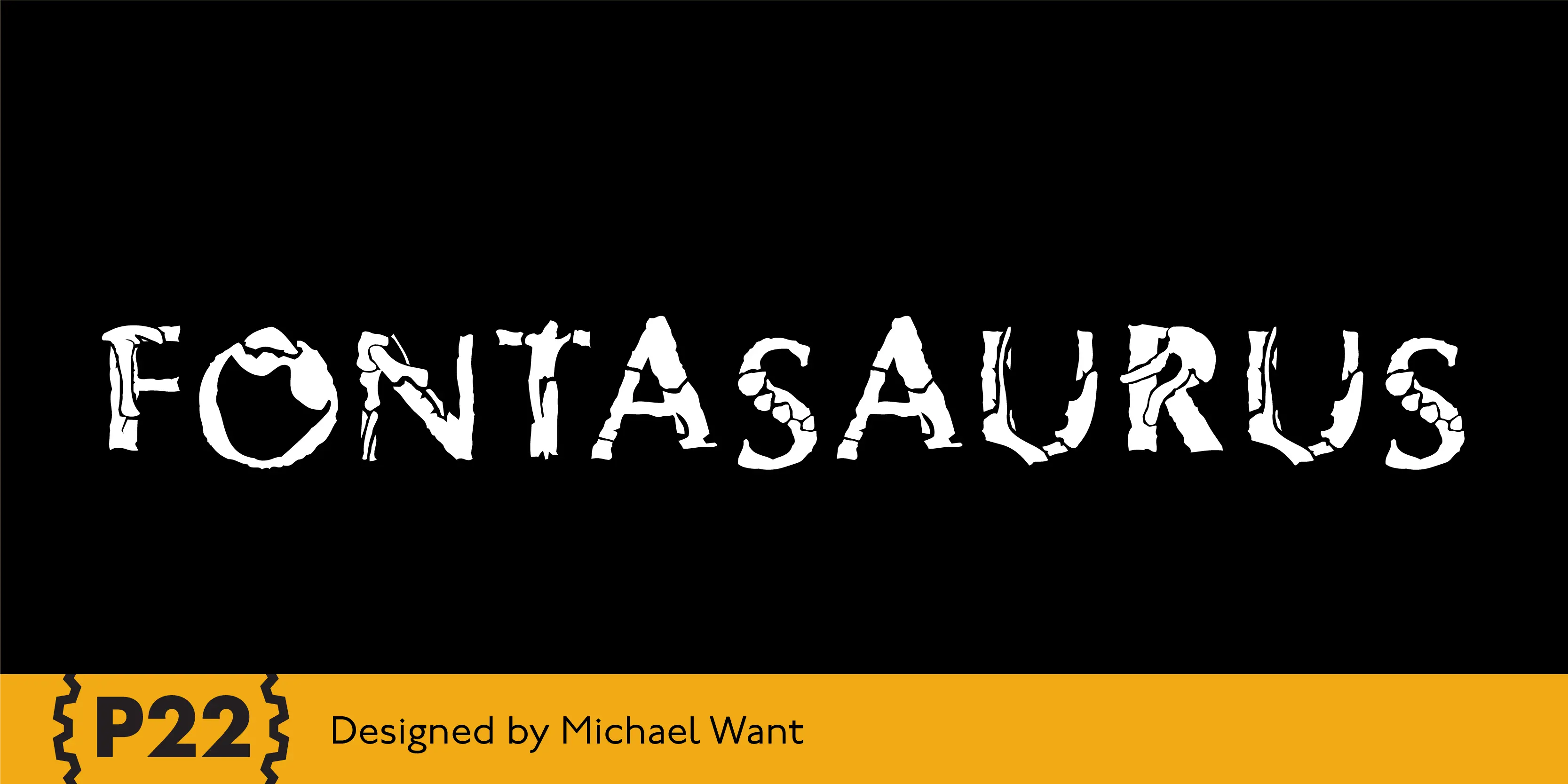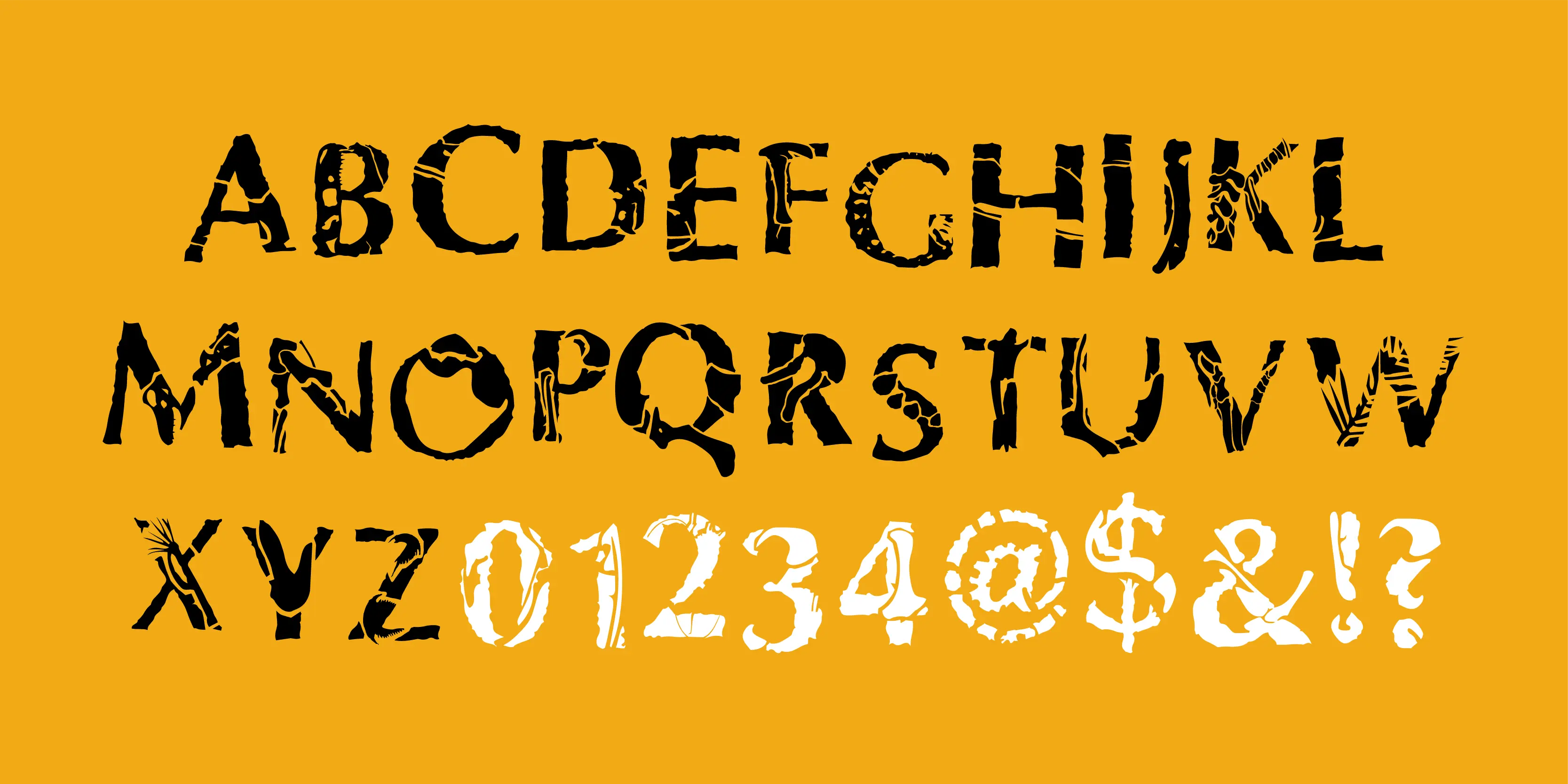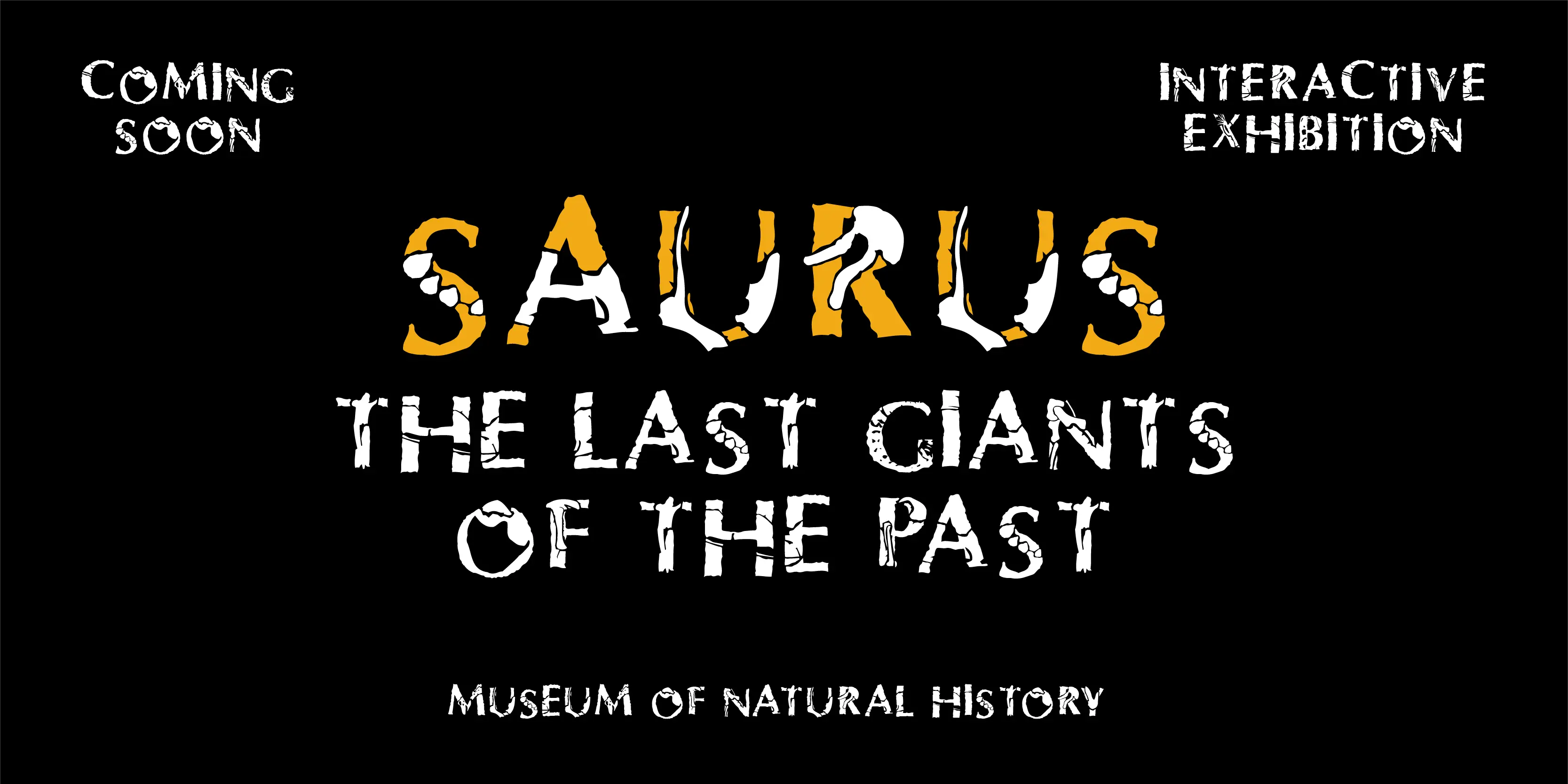
Fontasaurus Font Family
Fontasaurus
P22 Fontasaurus is a fun layered puzzle font made up of textures and dinosaur bones. The images only appear after you’ve type both the upper and lowercase letters, sort of like typographic anthropology. Fontasaurus Text is pre-composed with the entire letters. Picture it in use on a Raptor birthday card, Velociraptor party invitations, or posters for fans of almost any other giant lizard!